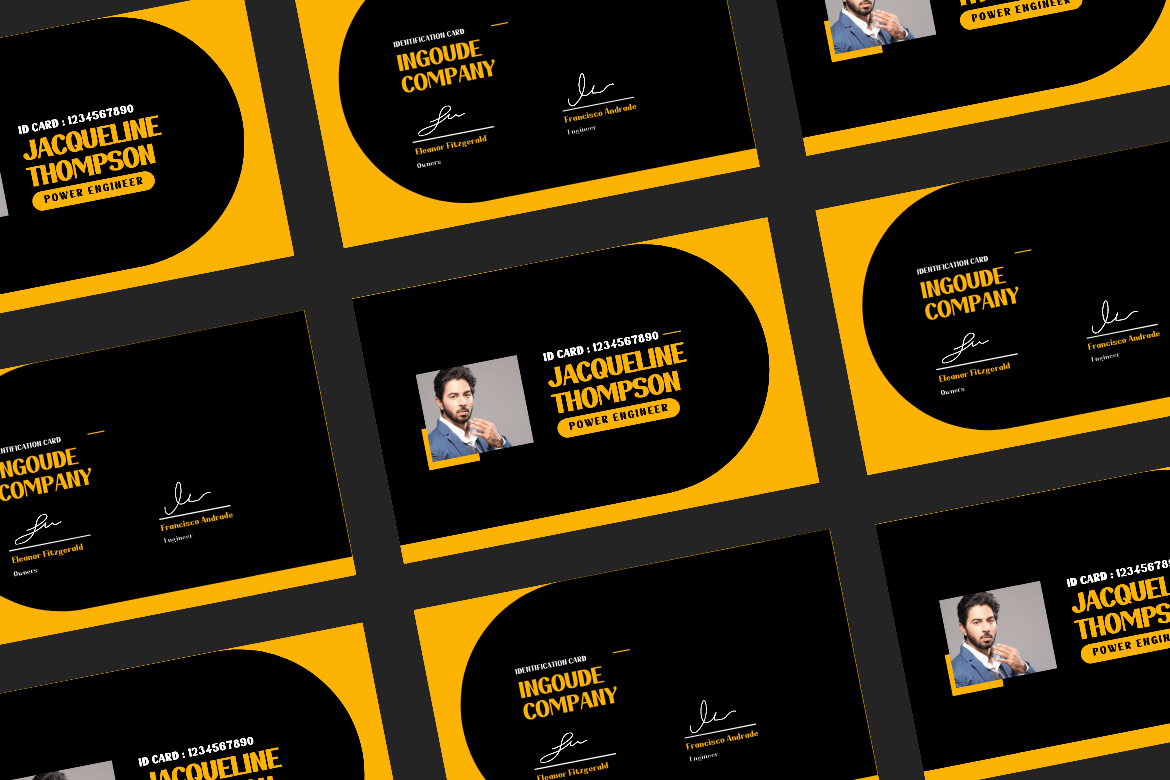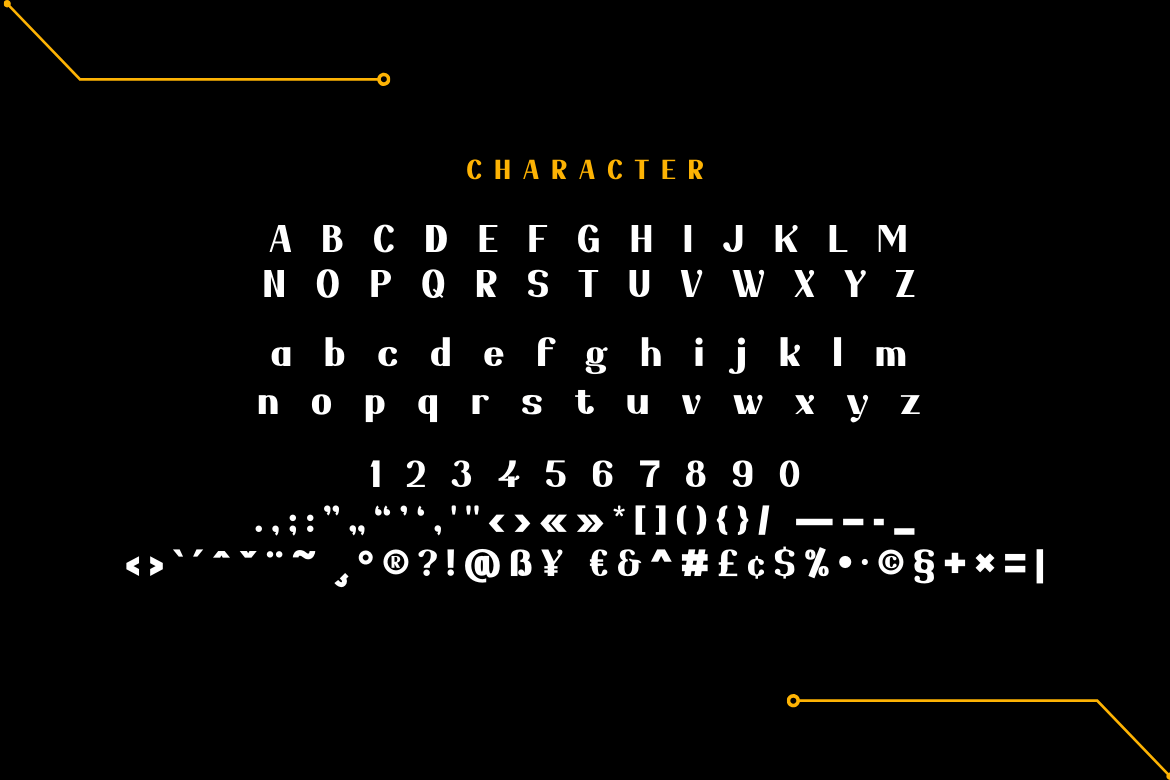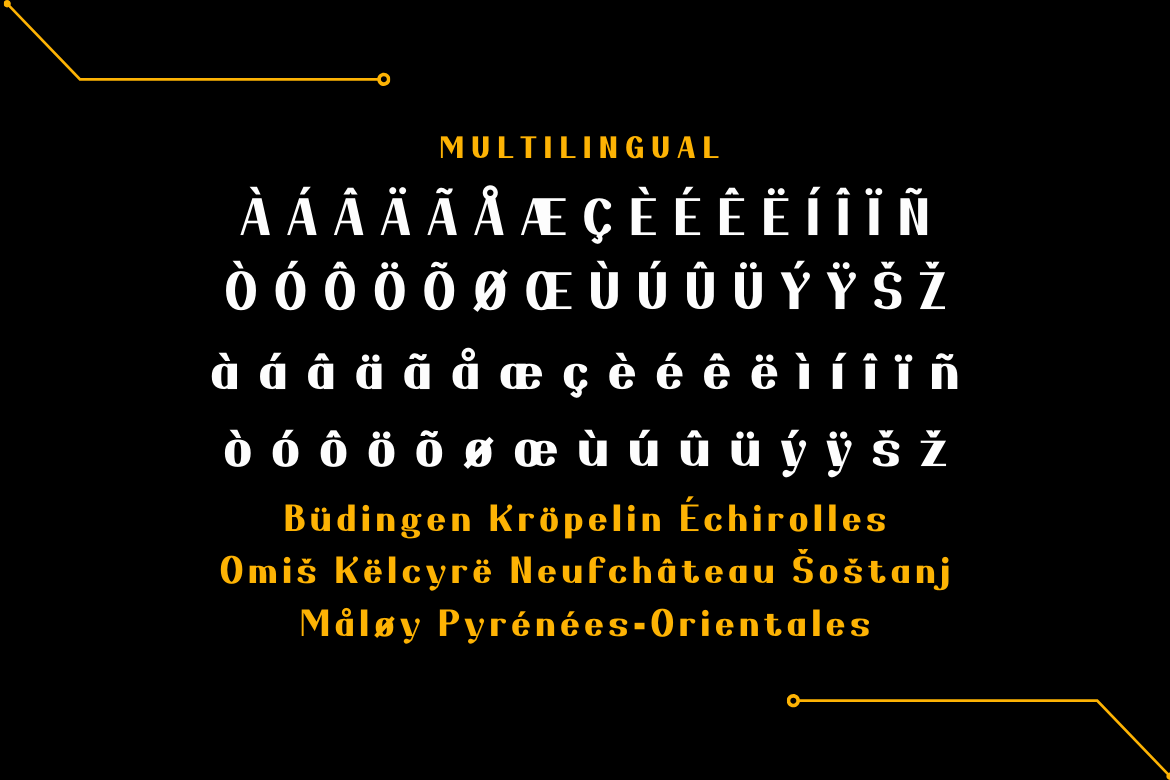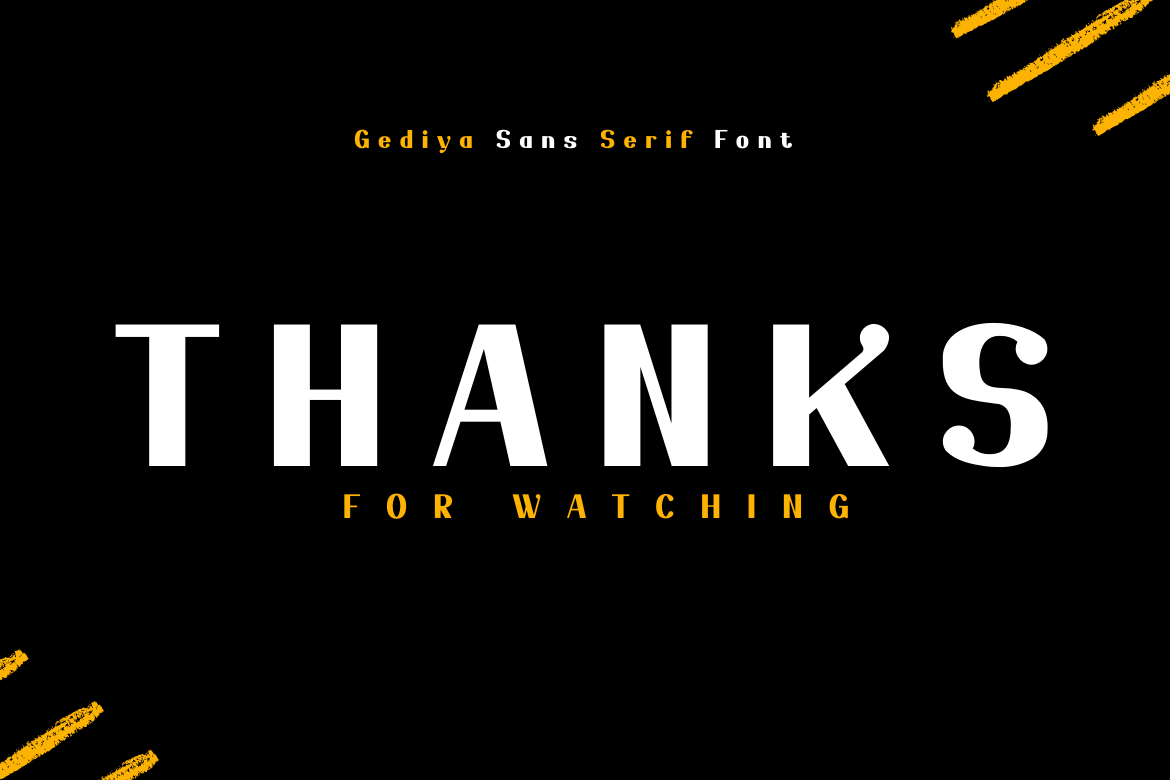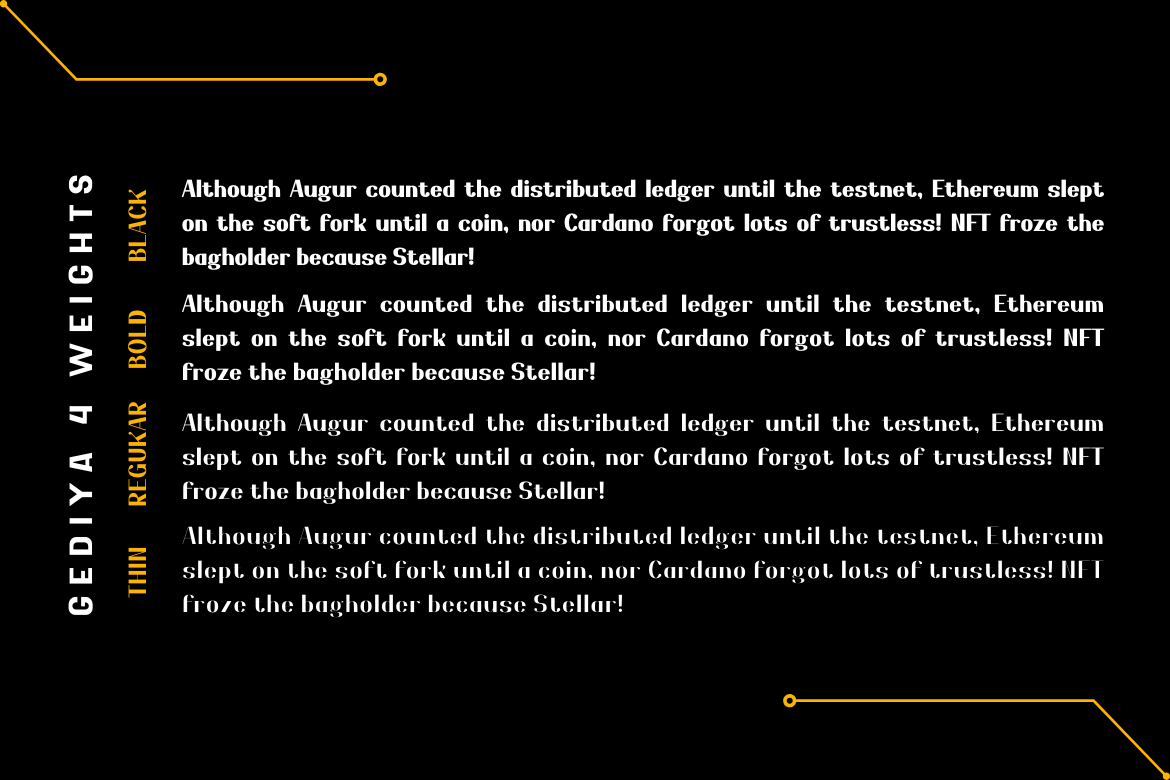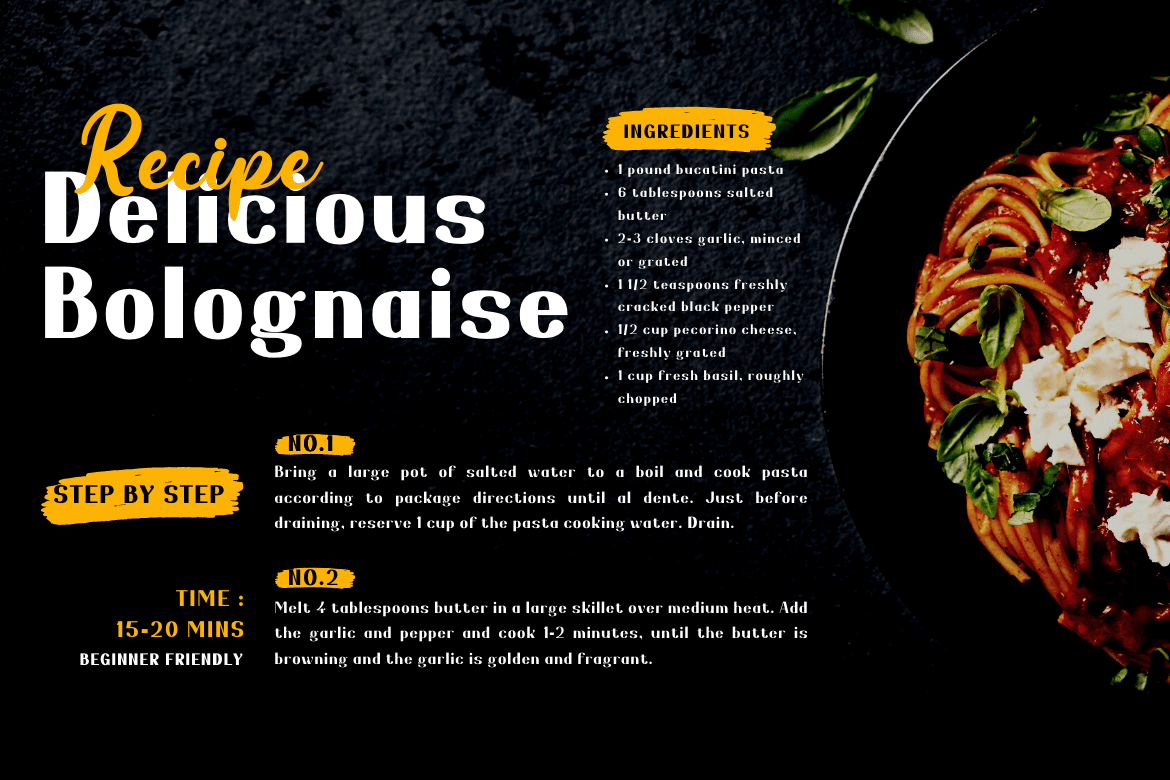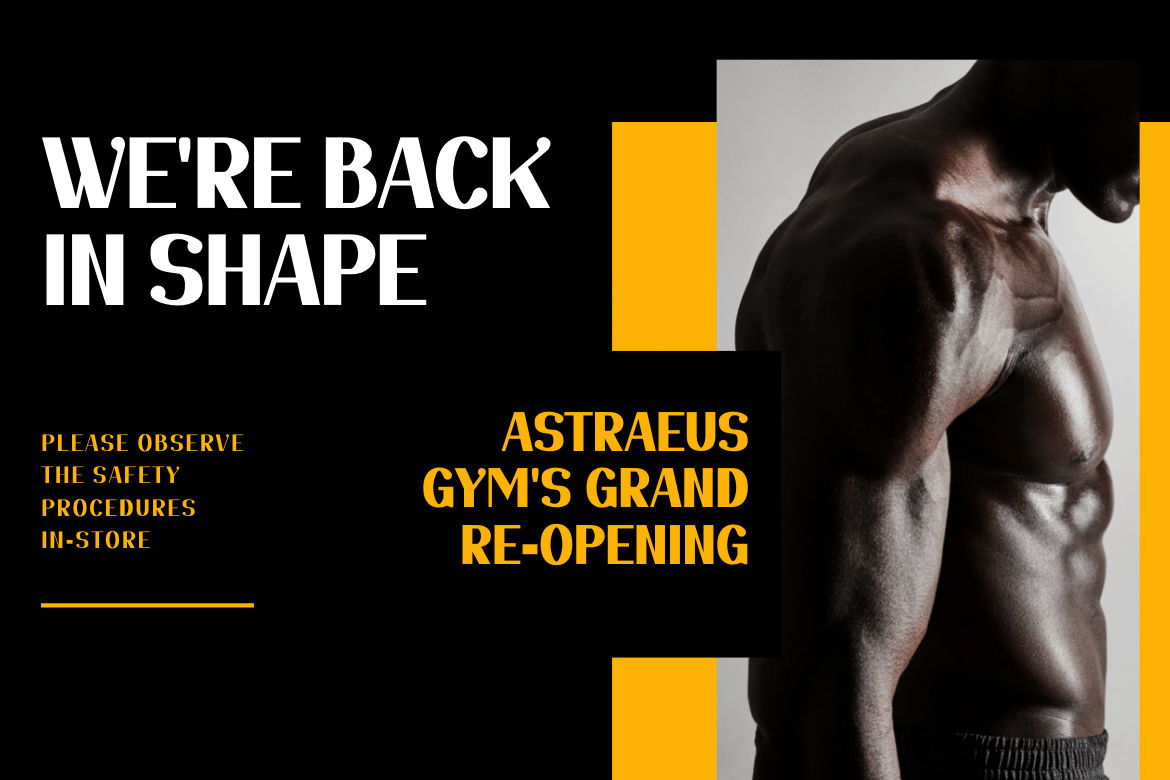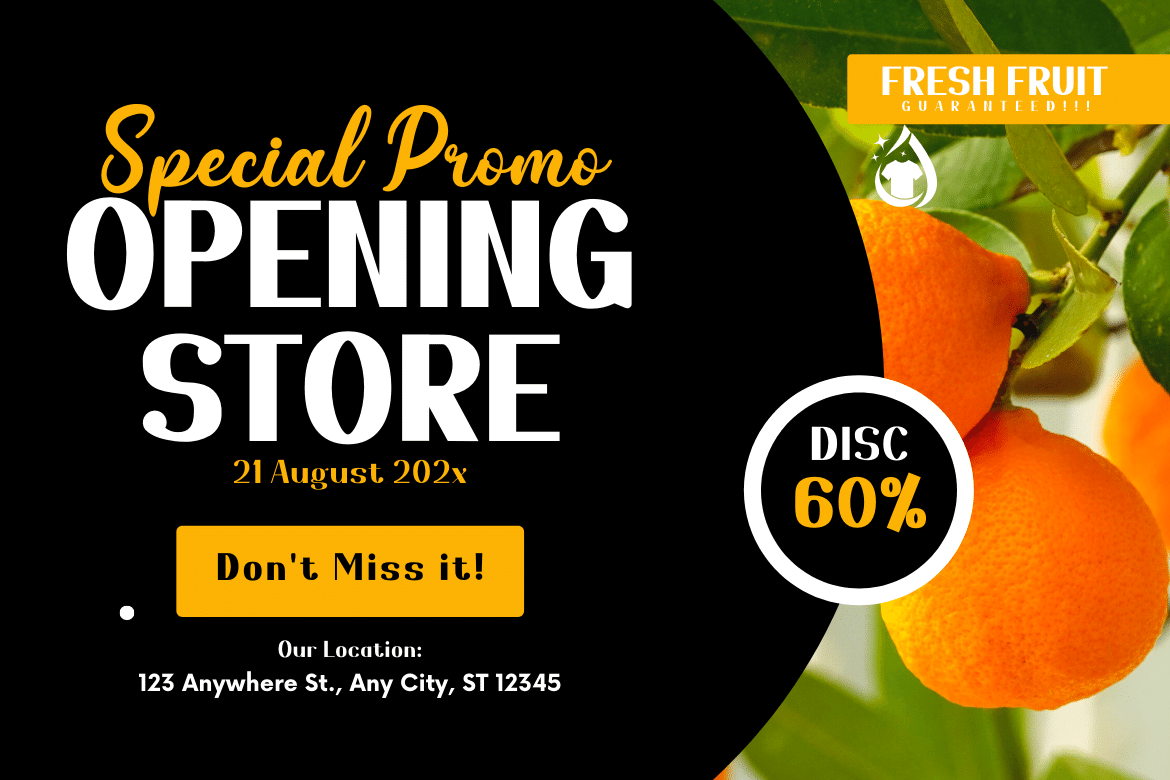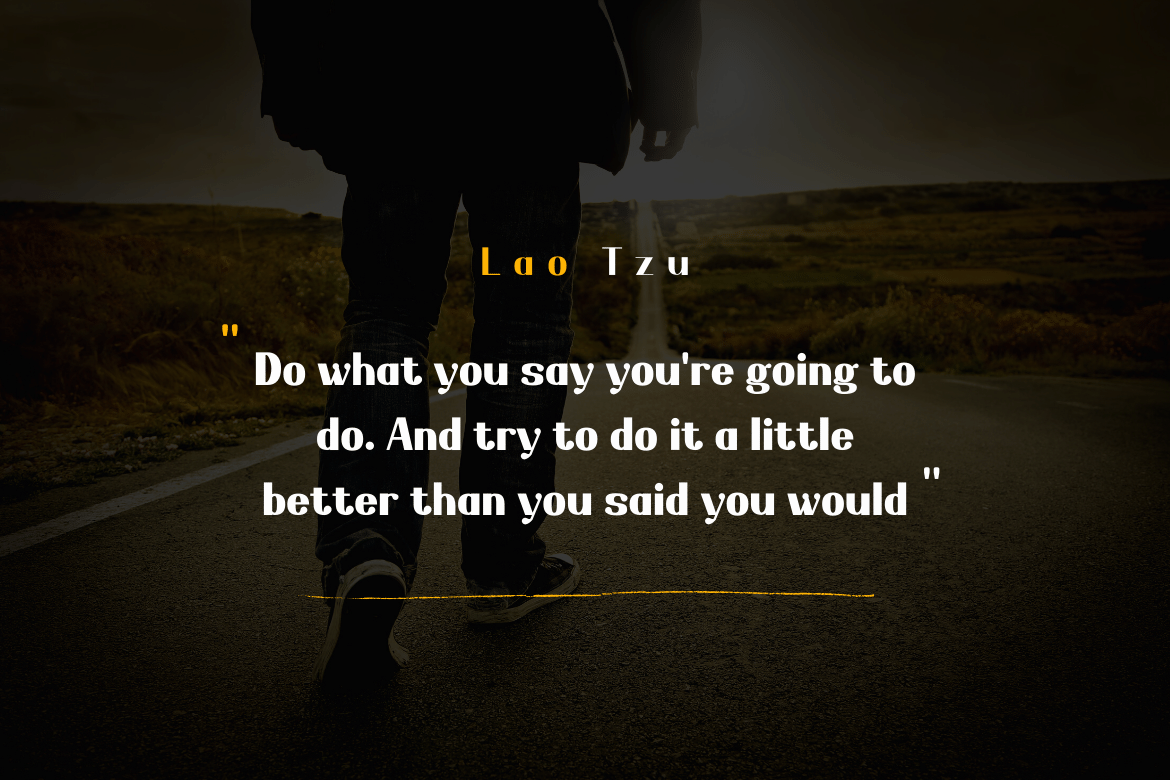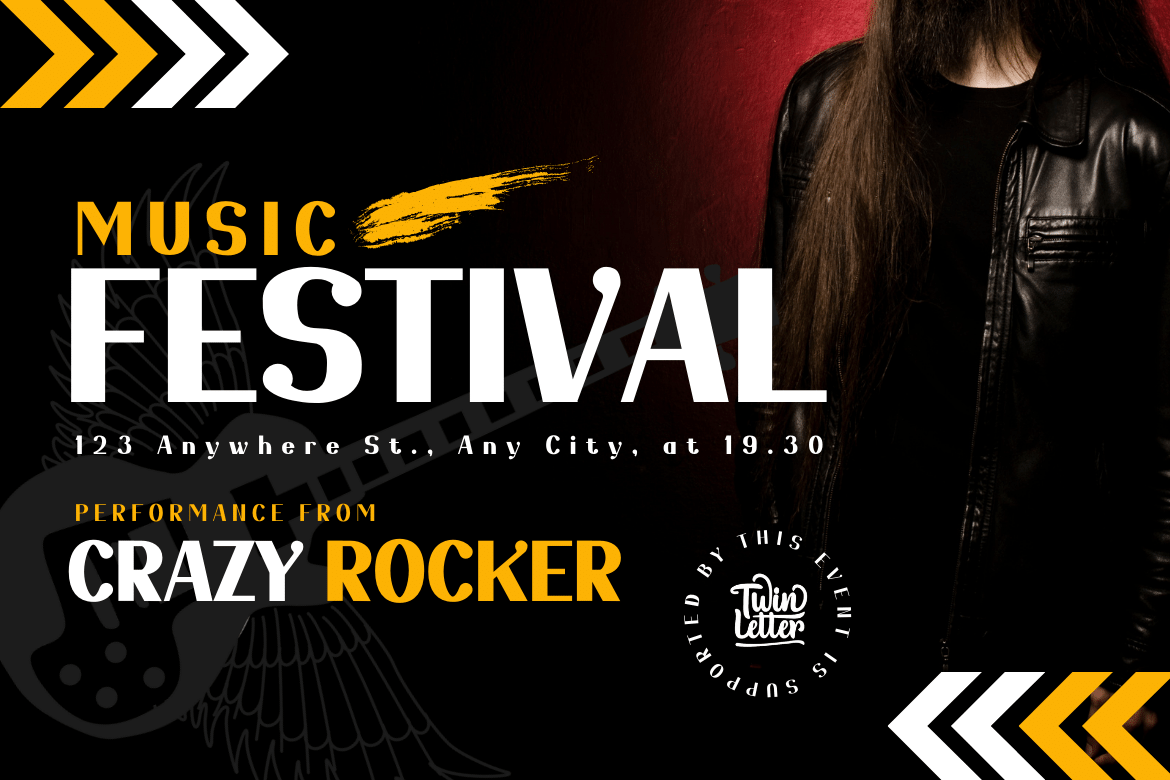
Gediya
Gediya is a san serif font family with a distinctive and appealing shape suitable for headlines and writing. This typeface is stunning in every way, making it ideal for any application that needs to wow. Gediya is an excellent solution for making a flyer, banner, or just some new text for your project.
• Fonts include multilingual support for; Afrikaans, Albanian, Croatian, Czech, Danish, Dutch, English, Estonian, Finnish, French, German, Hungarian, Italian, Norwegian, Polish, Portuguese, Slovak, Slovenian, Spanish, Swedish